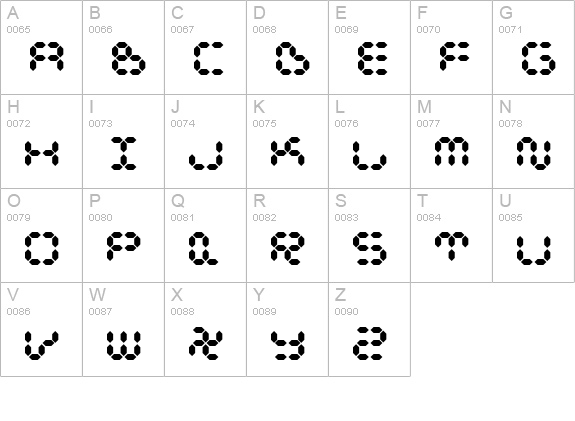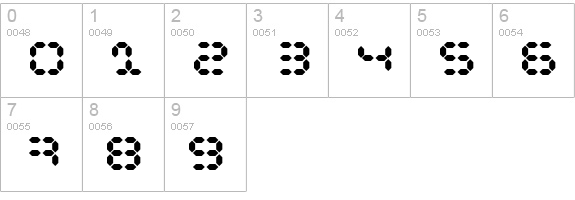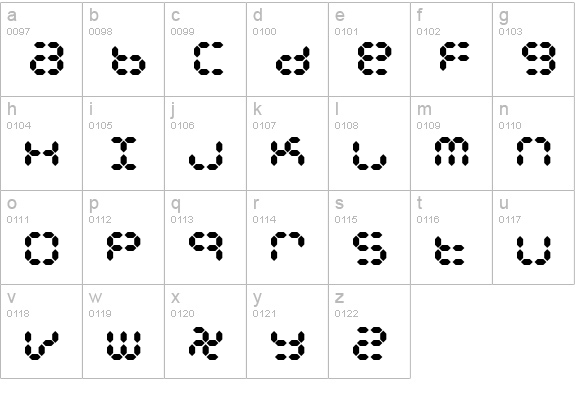
Dspl Font Details
DSPL font is a modern and stylish typeface that exudes sophistication and elegance. With its clean lines and sharp edges, this font is perfect for creating eye-catching designs that demand attention. Whether you're working on a branding project, advertising campaign, or website design, DSPL font is sure to make a bold statement. Best of all, DSPL font is completely free to download at FontsMarket.com. This means you can access this high-quality font without any cost, making it a valuable resource for designers and creatives looking to enhance their projects without breaking the bank. Don't miss out on the opportunity to add DSPL font to your font collection and elevate your designs to the next level. Download it today and start creating stunning visuals that stand out from the crowd.